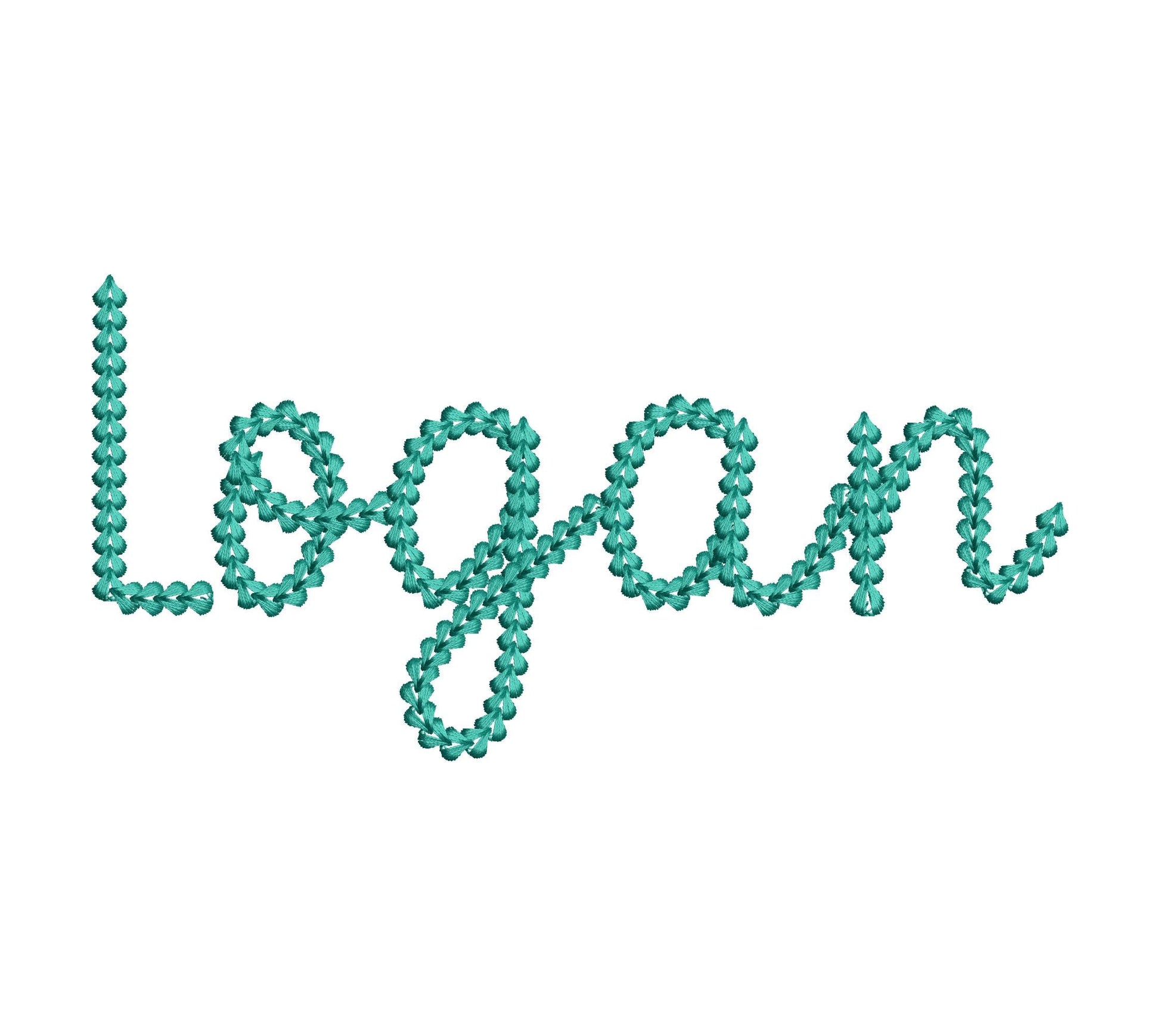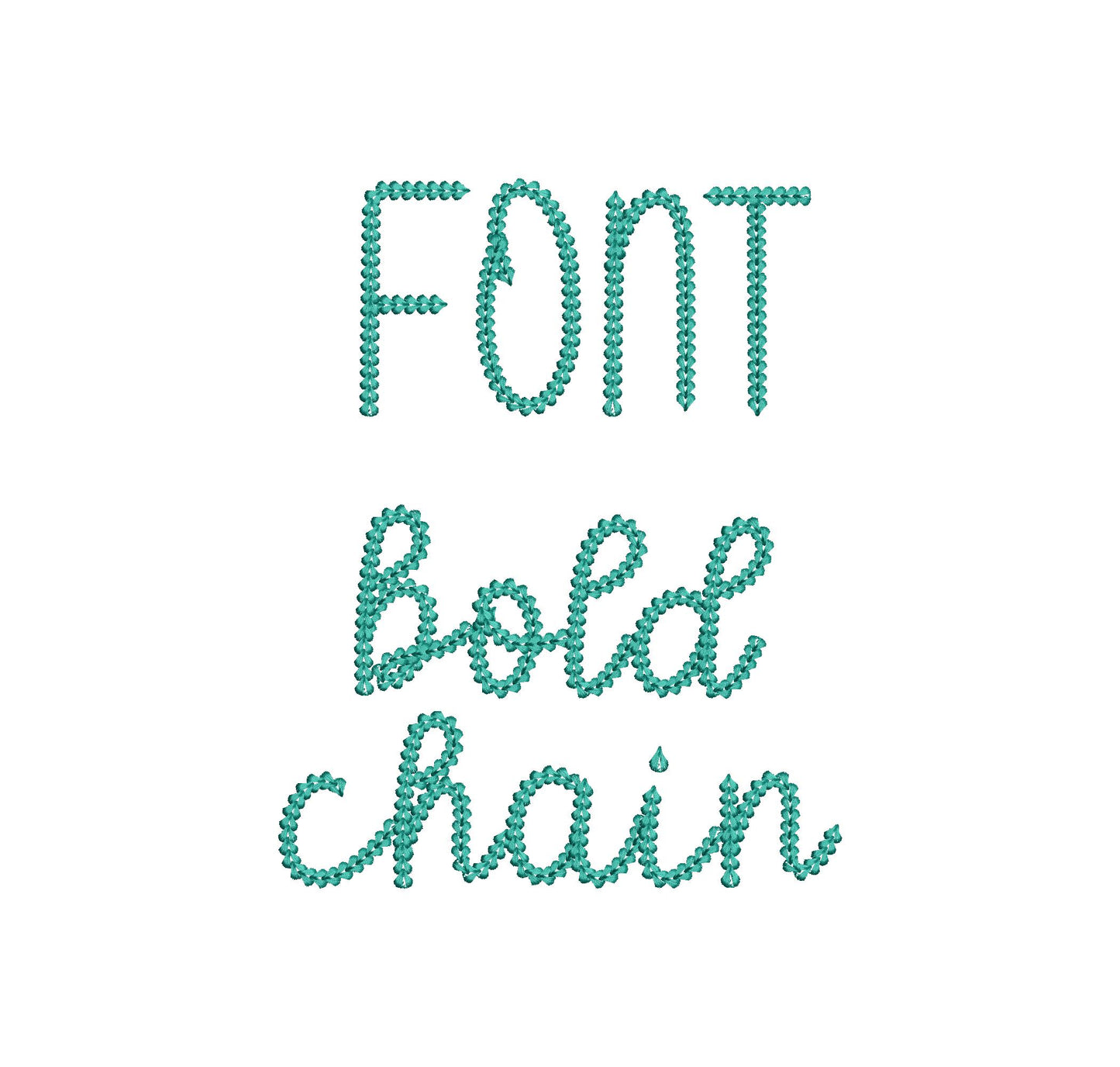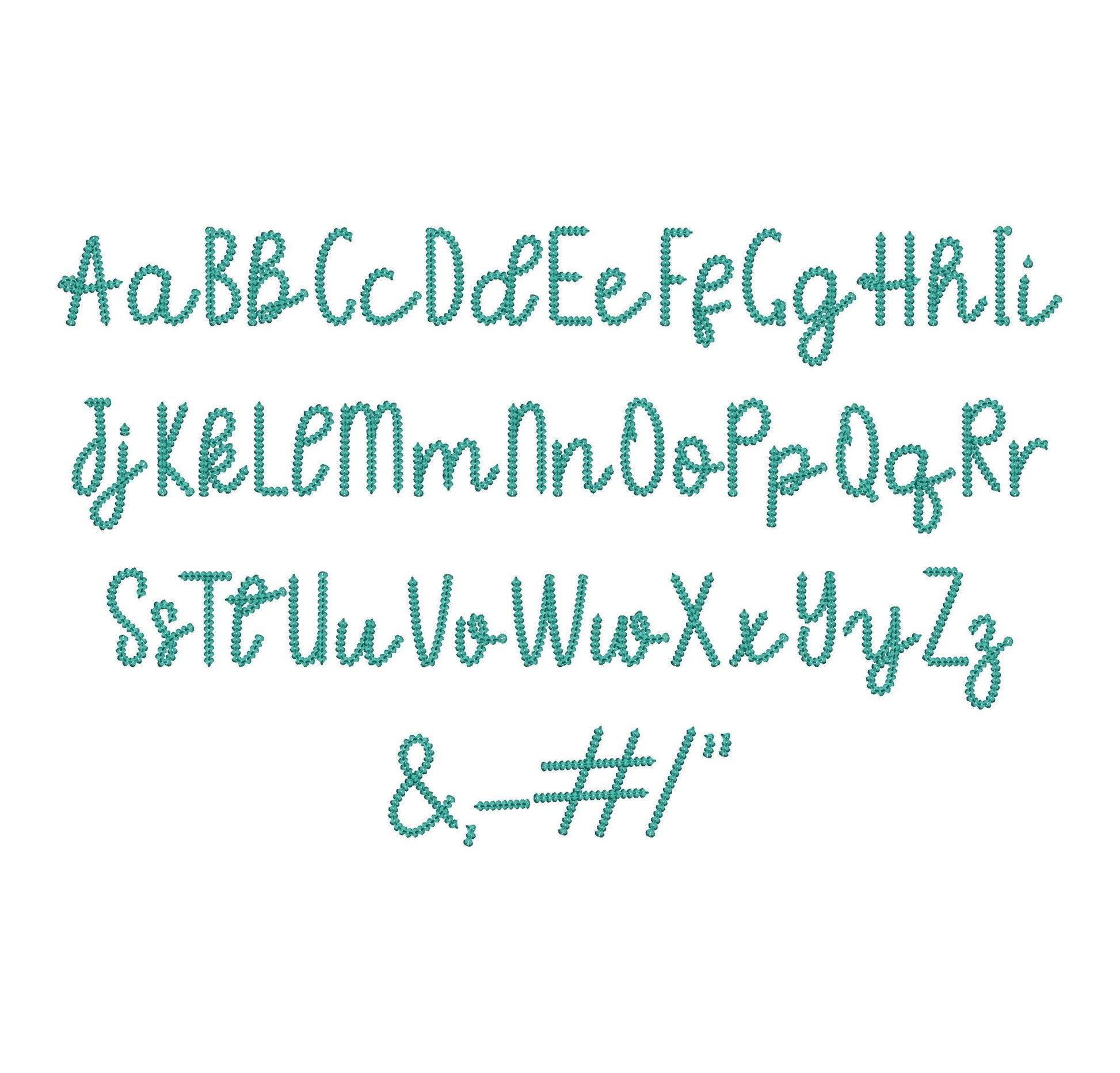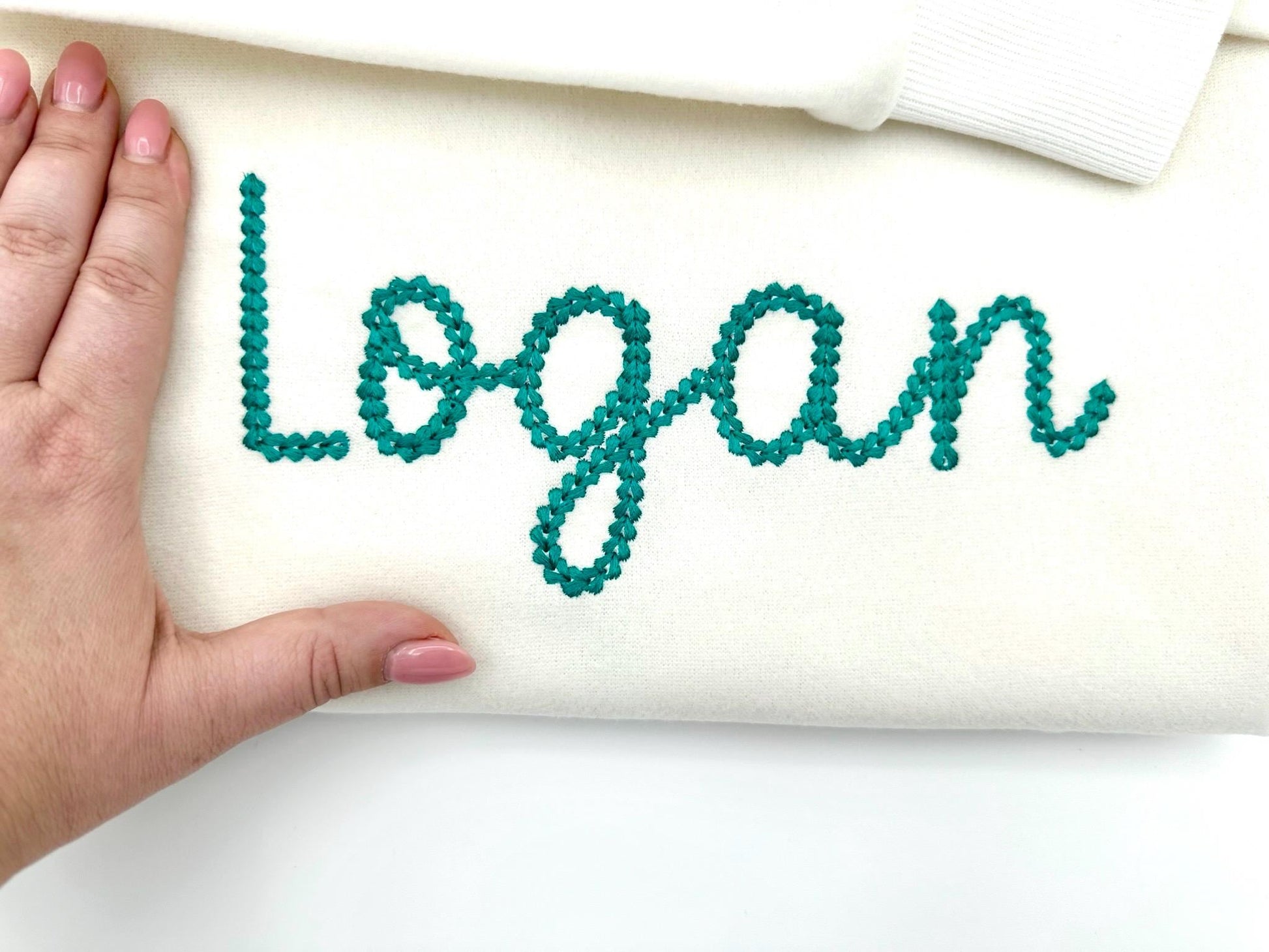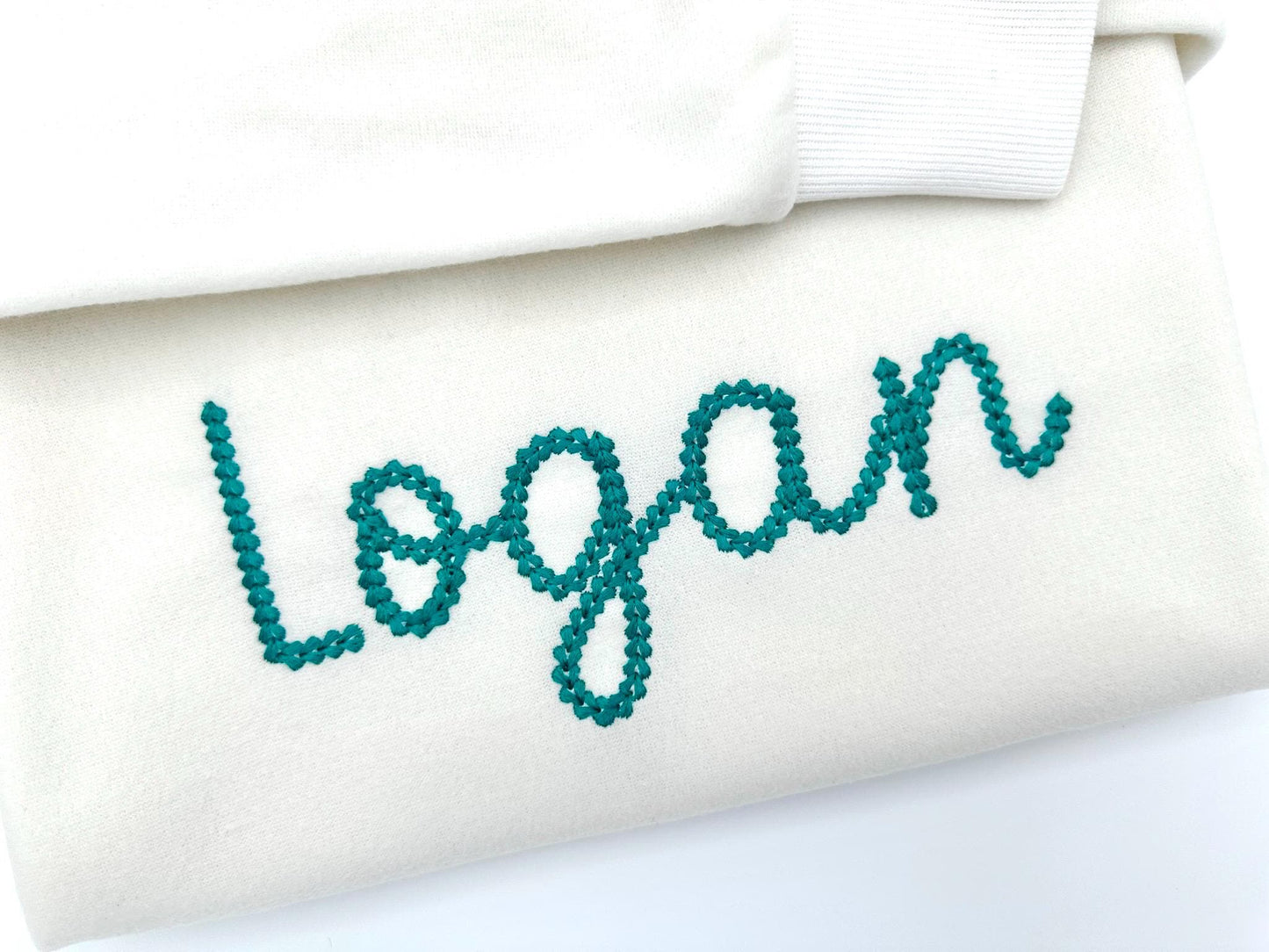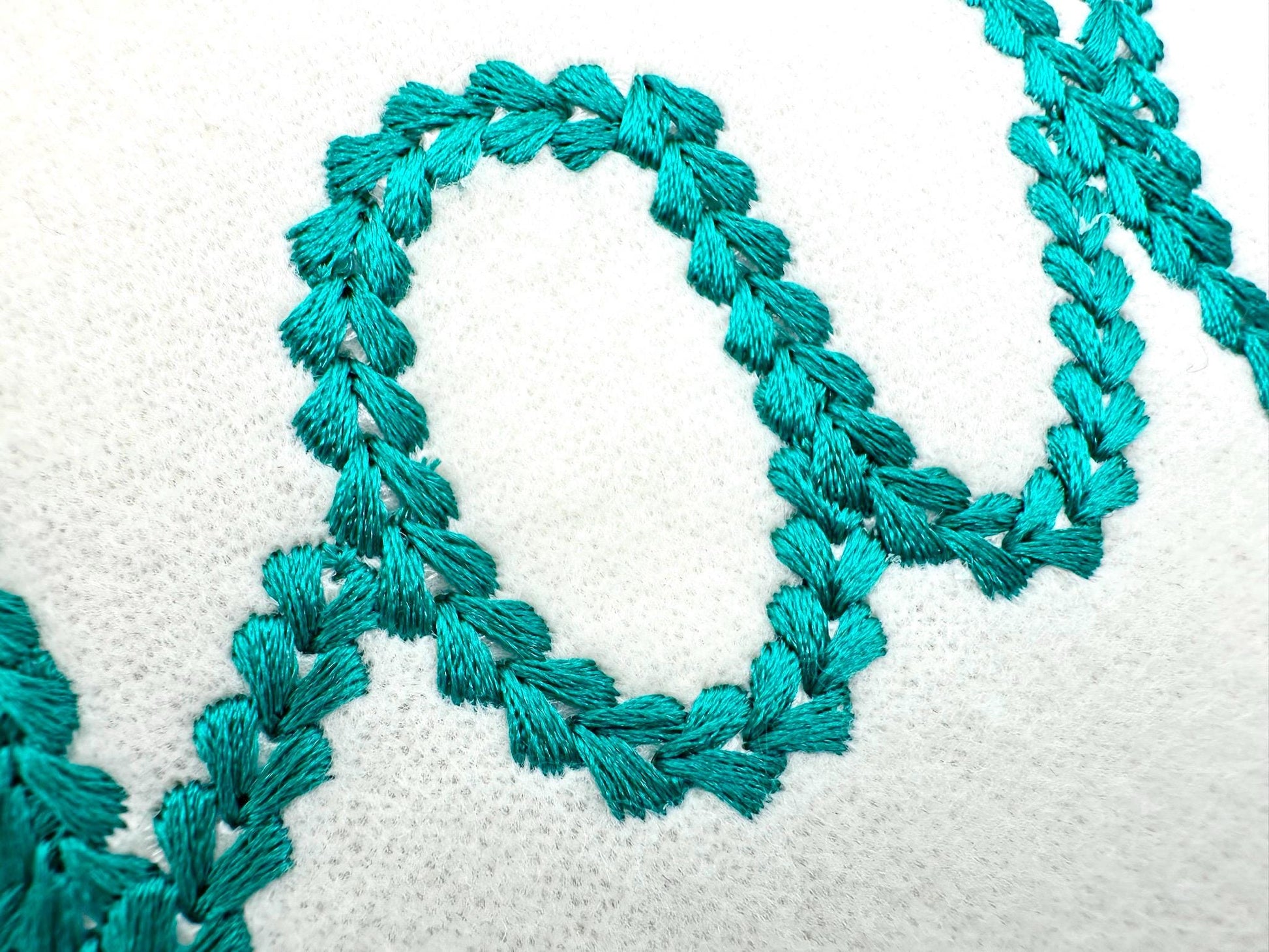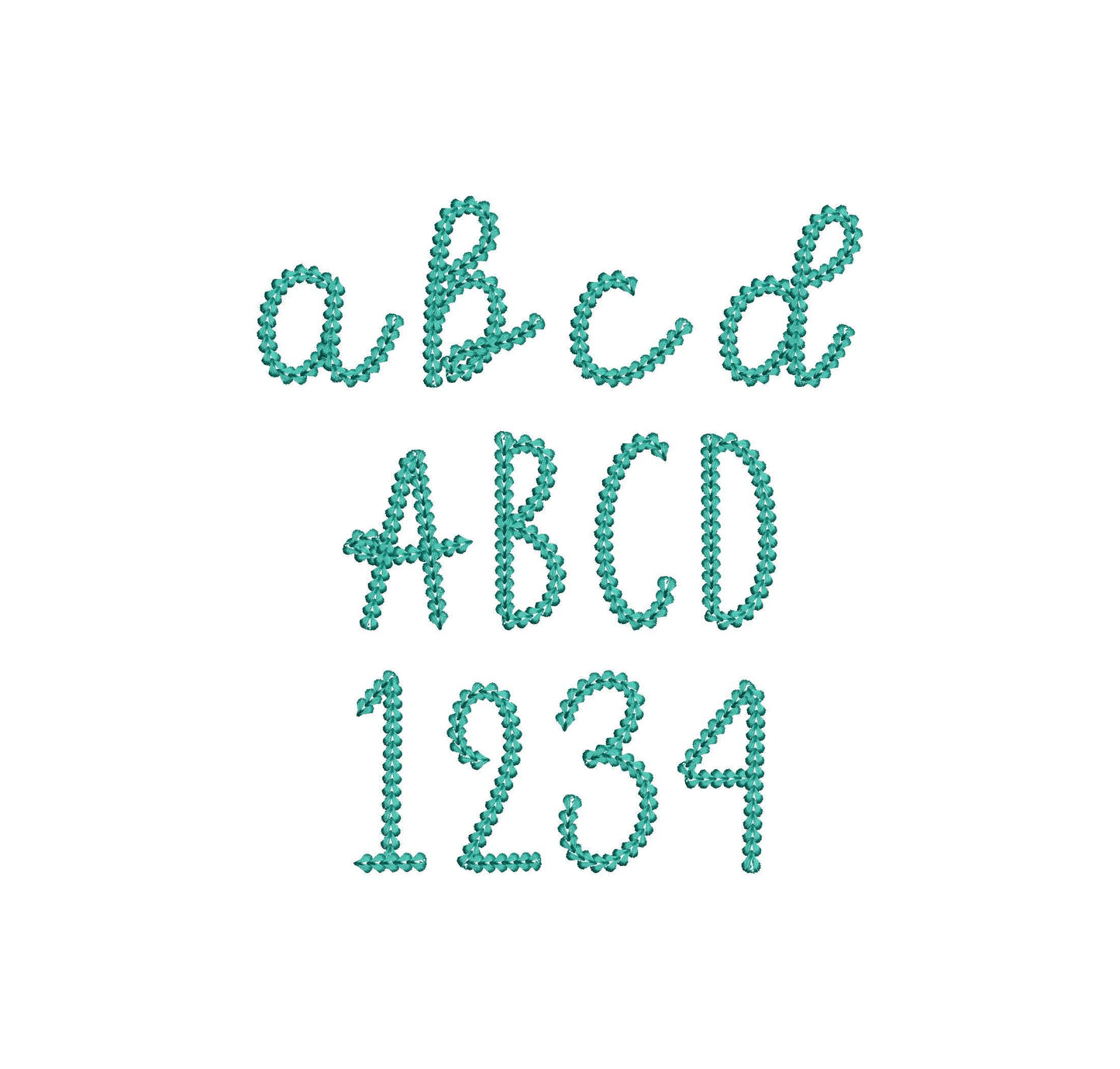
Or click to open the linkAn extra bold chain stitch handwritten font with a knit sweater look. Cozy for names on sweaters, beanies and blankets.
The letters come in three sizes: 2.4, 2.7 and 3.5 inches. A thick chain stitch gives each letter a handmade, knitted look. Includes uppercase and lowercase letters, numbers 0 to 9 and punctuation.